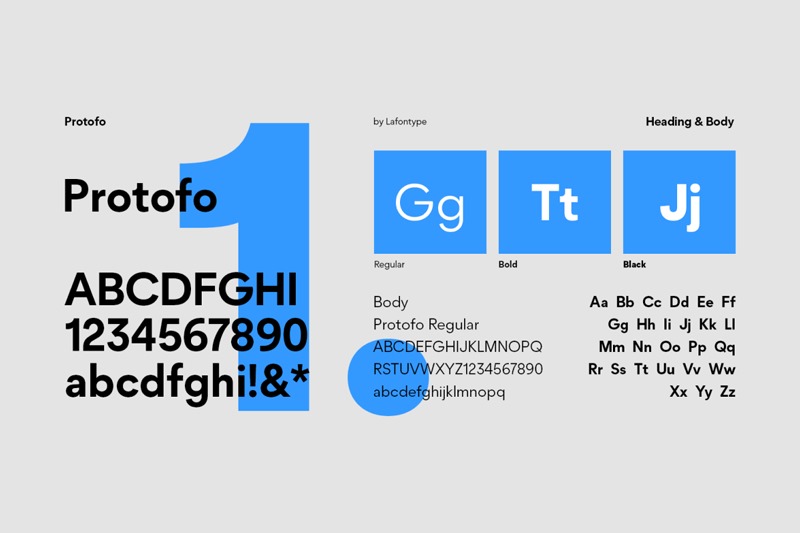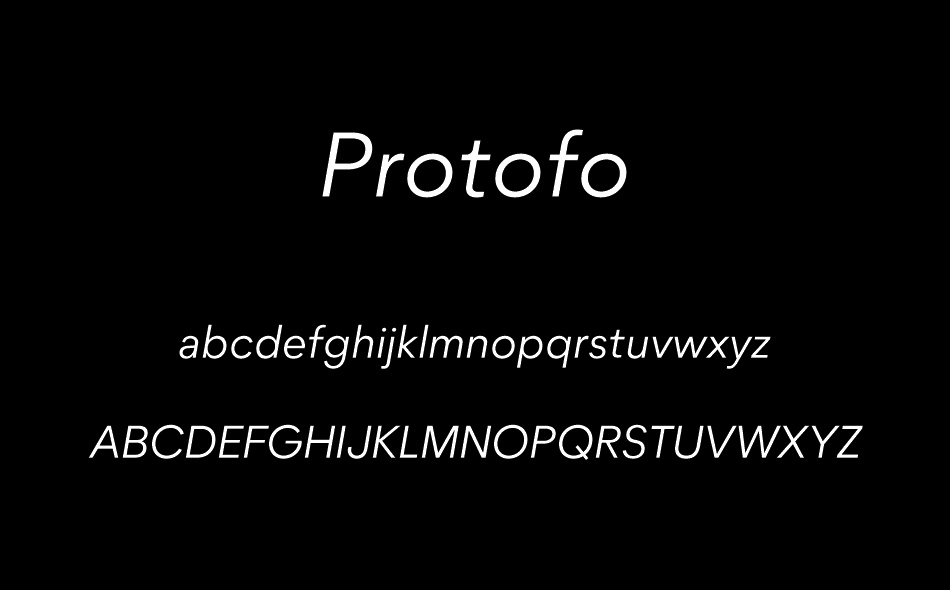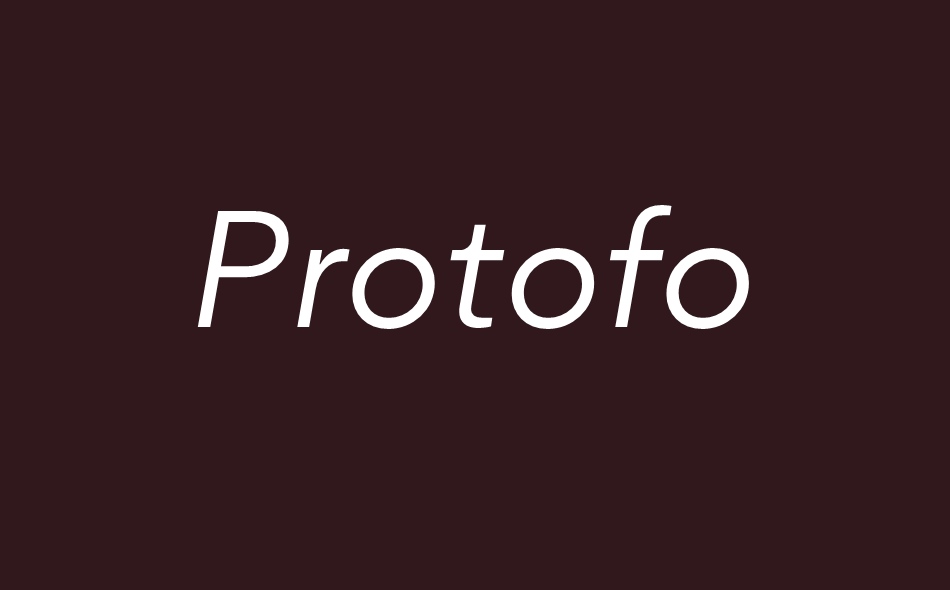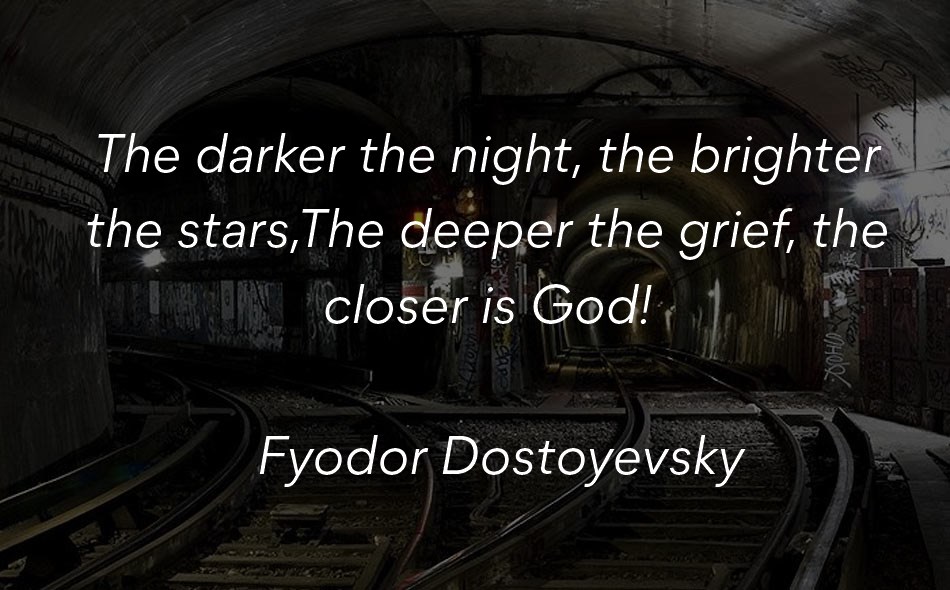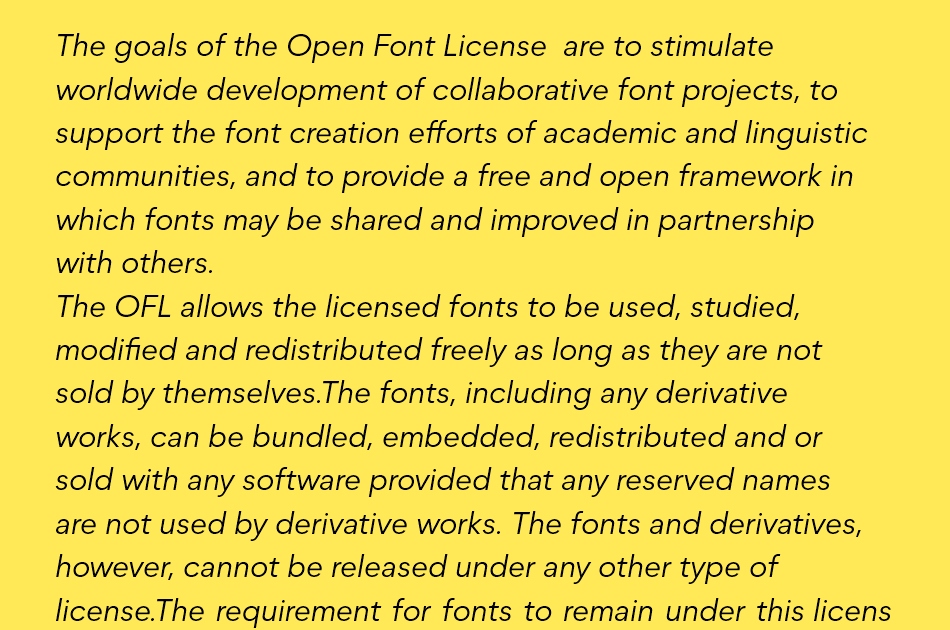
Protofo font
Protofo is a modern humanist sans-serif with characters that feature various geometric shapes from squares, rounds, and triangles. Protofo comes in 16 styles upright and italic from thin to black, each equipped with features such as localized ligatures, fractions, ordinals, superscripts, numerators, denominators, subscripts, proportional and tabular numerals.
Additionally, Protofo is equipped with extended Latin letters, enabling it to represent multiple languages, making it perfect for any kind of project including display, editorial, web, interface, app, etc.